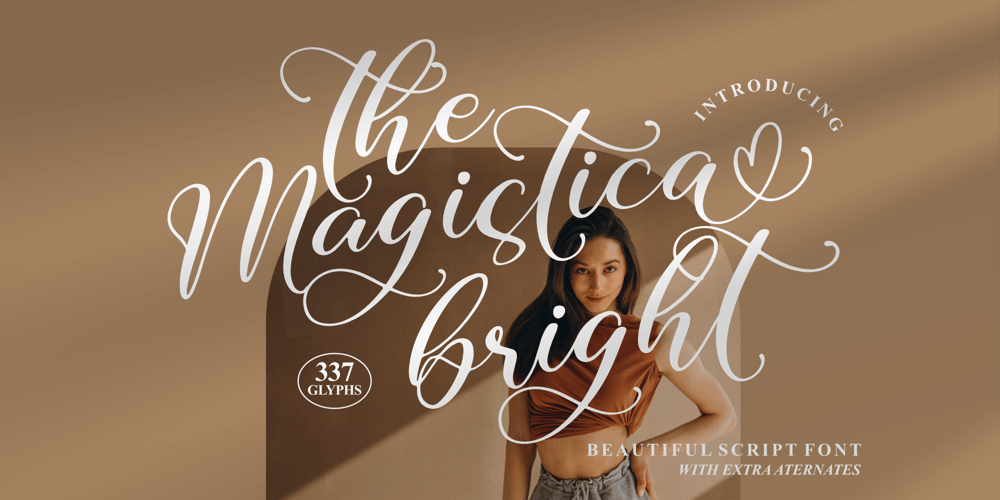
The Magistica Bright
The Magistica Bright font
The Magistica Bright Font Family was designed by Heru Utama Putra and published by Letterena Studios. The Magistica Bright contains 2 styles and family package options. The Magistica Bright is a magical script font carefully created with a touch of elegance. This font is PUA encoded which means you can access all of the glyphs and swashes with ease!